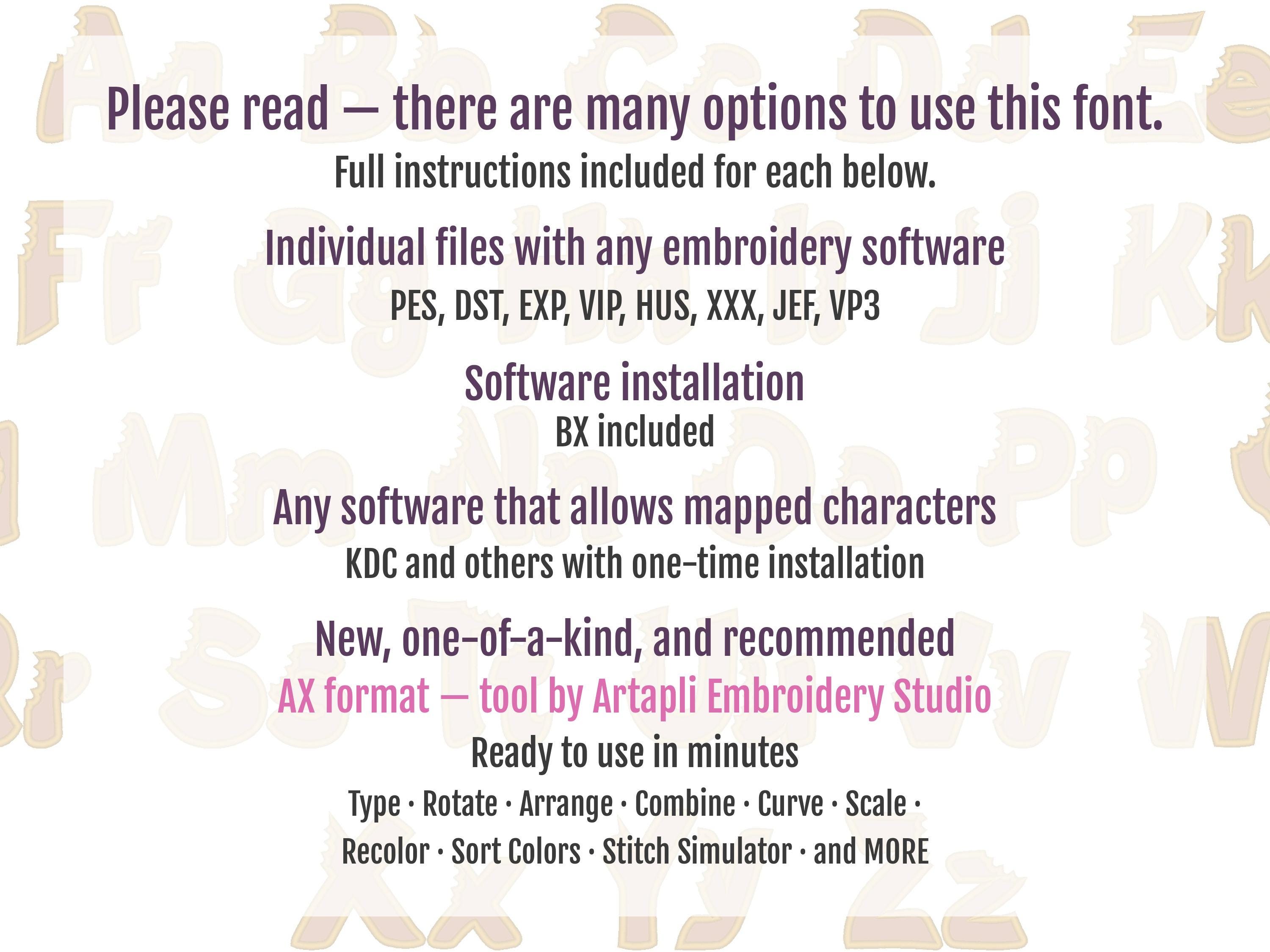
Bitten alphabet Font Applique wide satin stitch outline machine embroidery designs bitten letters cookie 2, 3, 4, 5inches kids monogram, BX included
Whole alphabet: uppercase A-Z, and lowercase a-z.